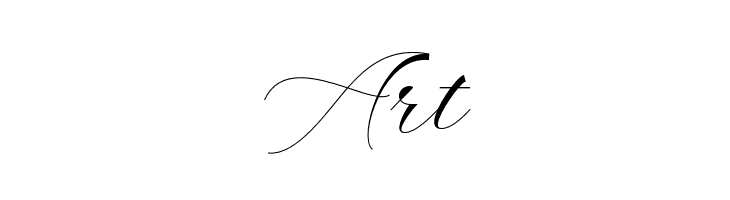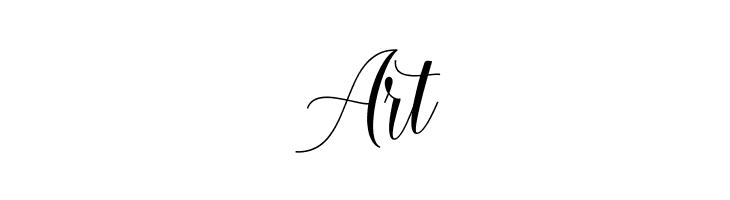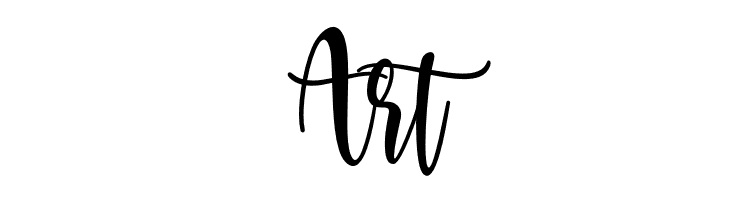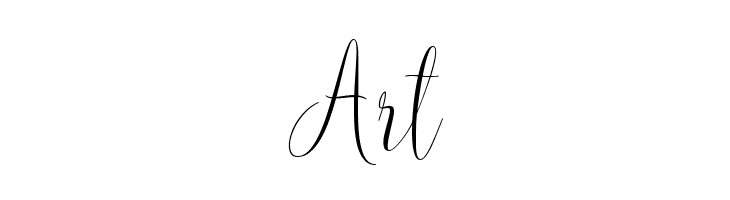
An elegant, flowing script font with graceful curves and decorative flourishes.
An elegant, flowing script font with ornate uppercase letters and smooth, connected lowercase letters.
An elegant script font with flowing, interconnected characters and decorative swashes.
An elegant script font with flowing, cursive letters and a romantic flair.
An elegant and flowing script font with bold, expressive characters.
An elegant script font with flowing, ornate letters and decorative flourishes.
An elegant and flowing script font with ornate, interconnected letterforms.
A playful, childlike handwritten font with irregular strokes and charming imperfections.
A graceful script font with flowing, interconnected letters and a calligraphic style.
An elegant script font with flowing, decorative swirls and loops.